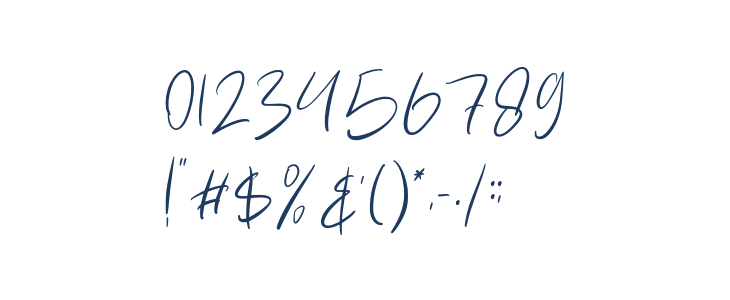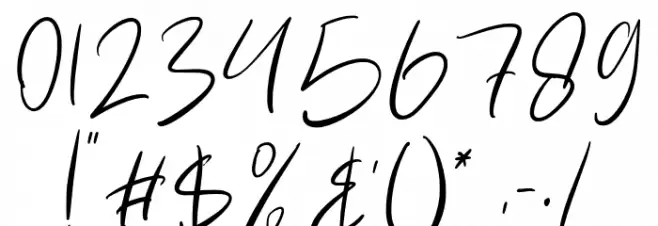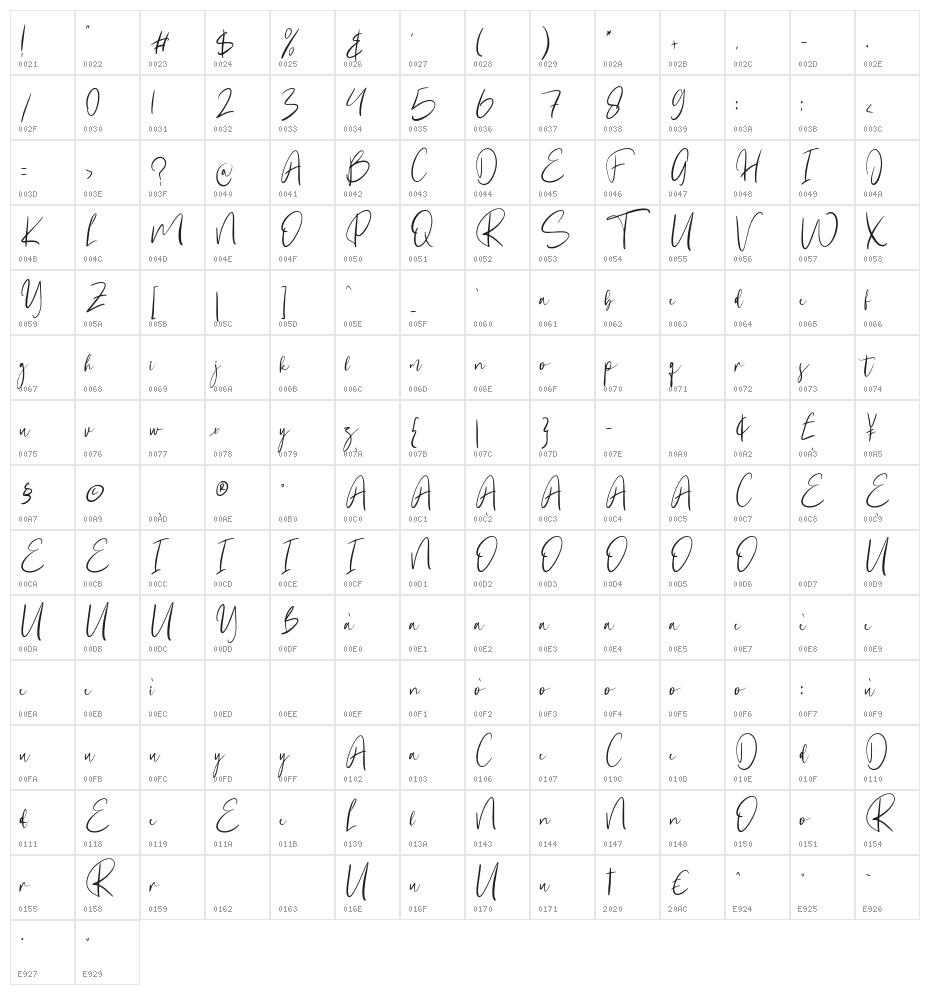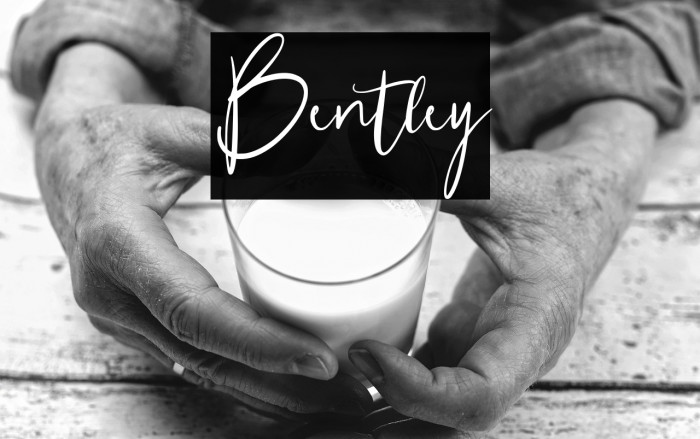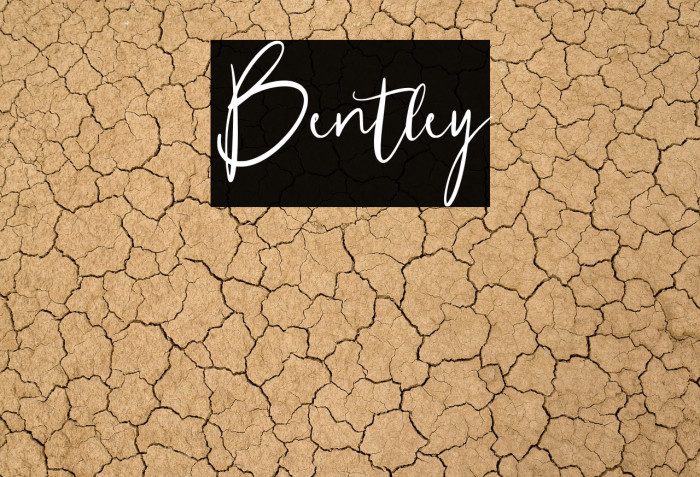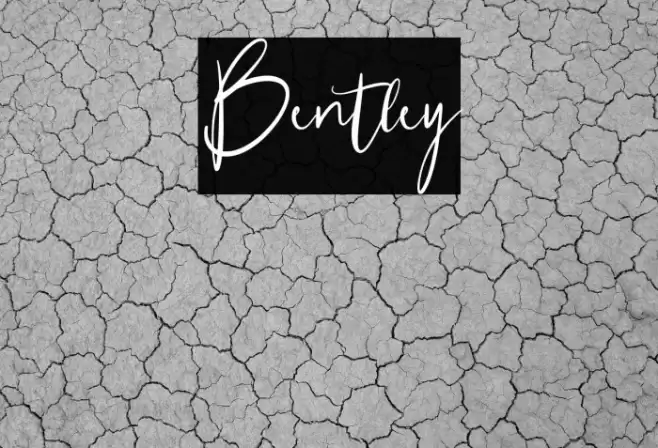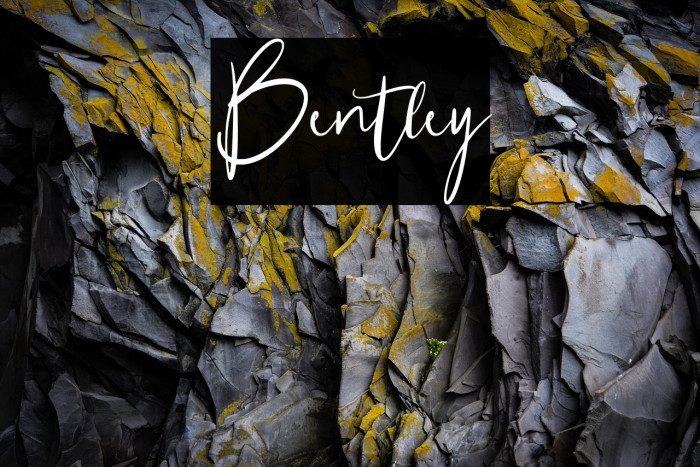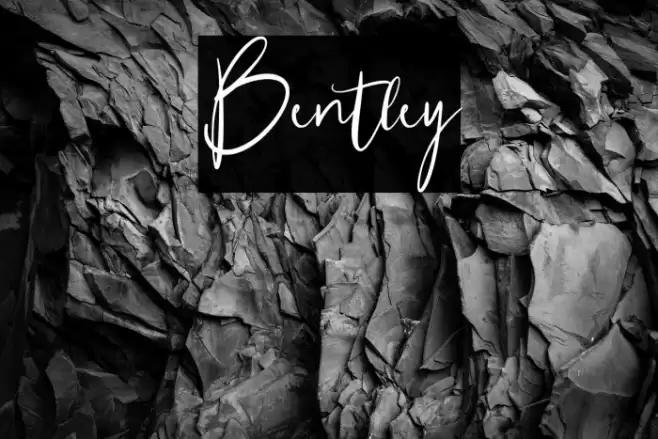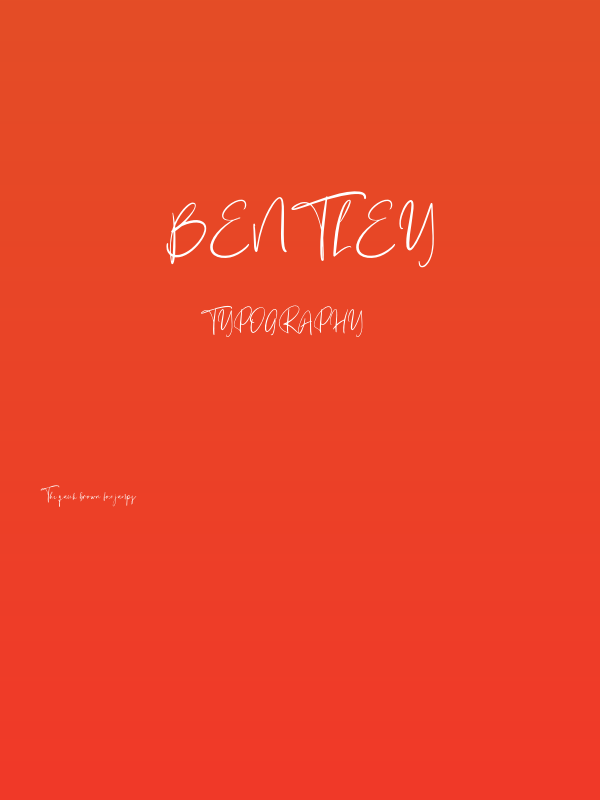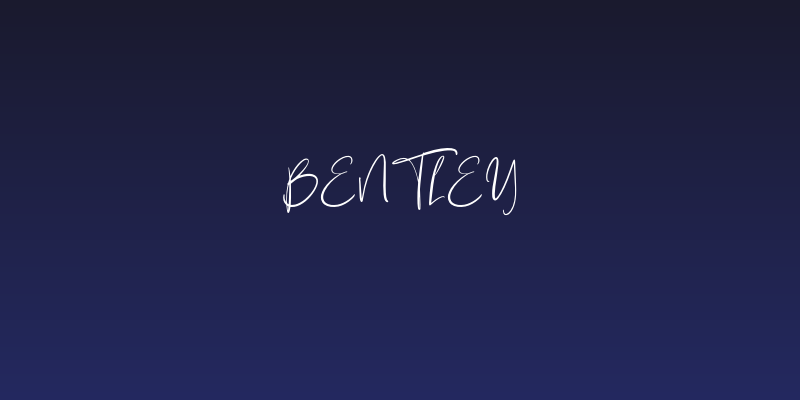
Bentley Font
Bentley Description
This font exudes a lively and expressive character, with its fluid and dynamic strokes that mimic the natural flow of handwriting. The uppercase letters are bold and sweeping, while the lowercase letters maintain a more delicate and intricate form. The numerals are consistent with the overall style, featuring a playful yet elegant appearance. Special characters are thoughtfully designed to complement the alphabet, adding a touch of sophistication. The font's overall aesthetic is both modern and timeless, making it suitable for a variety of creative applications.
| Proposed Projects | Ideal for wedding invitations, personal branding, greeting cards, and artistic projects that require a personal touch. |